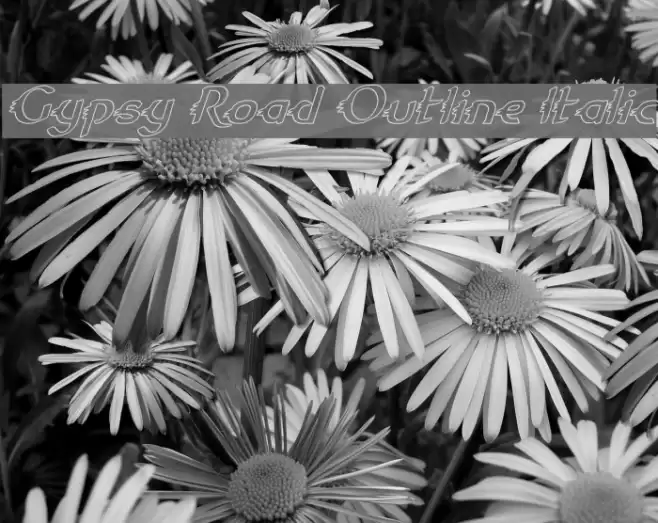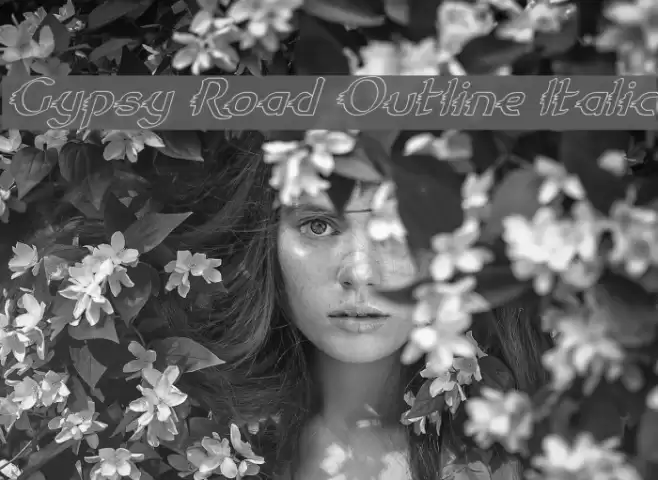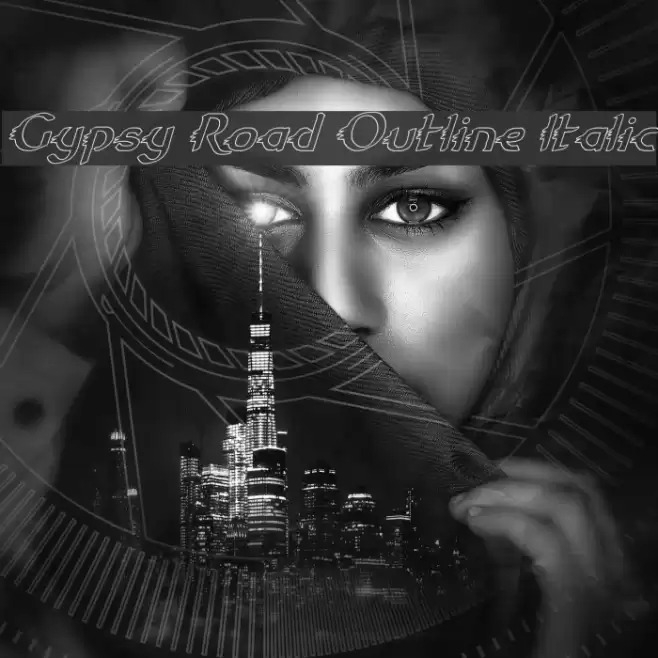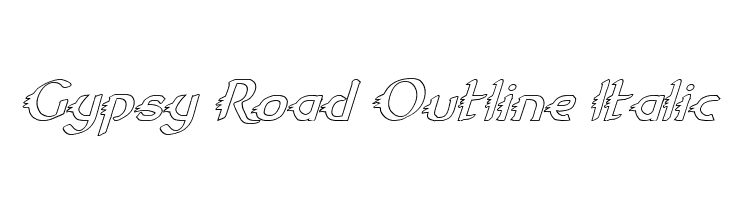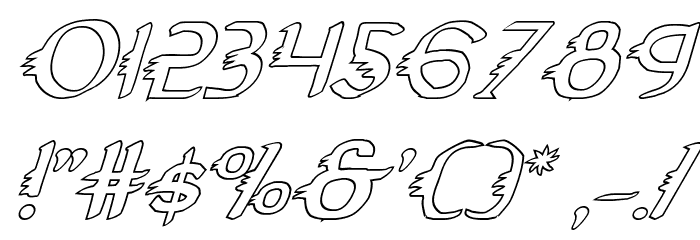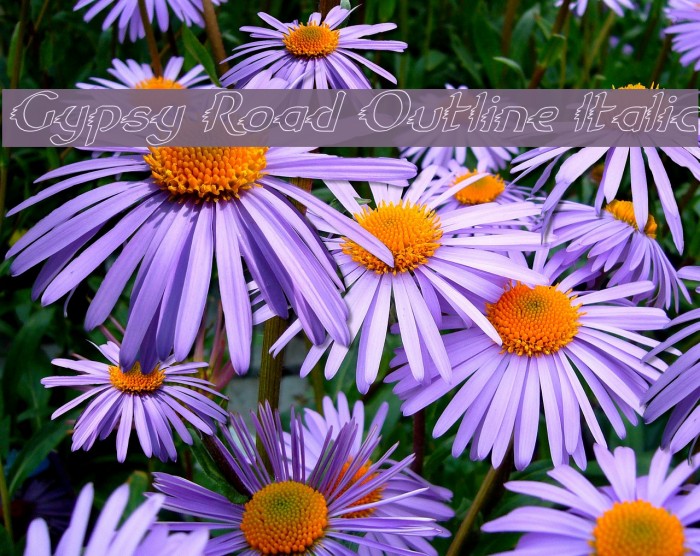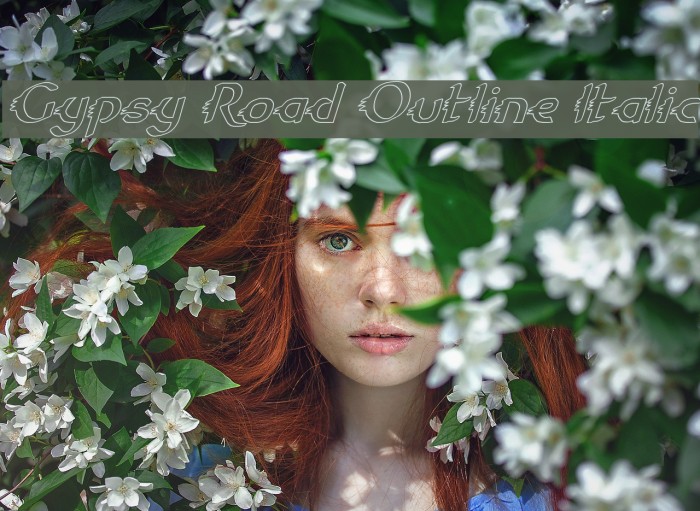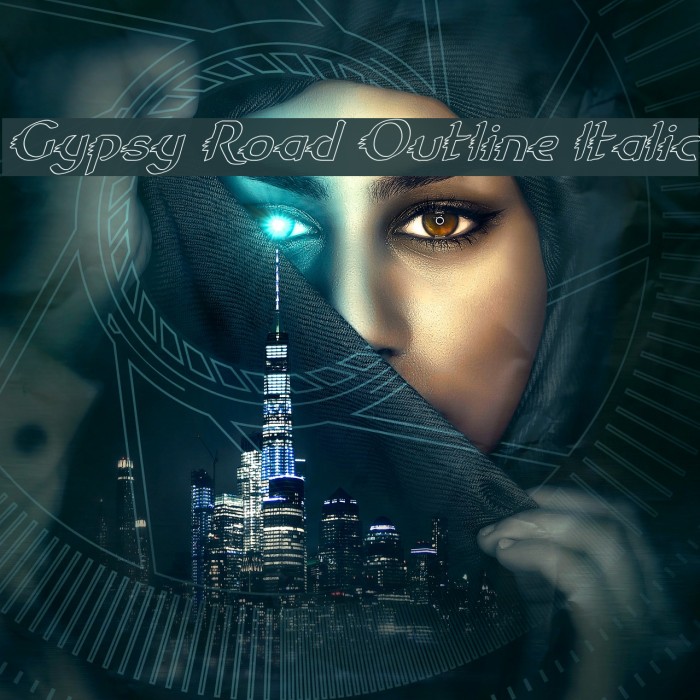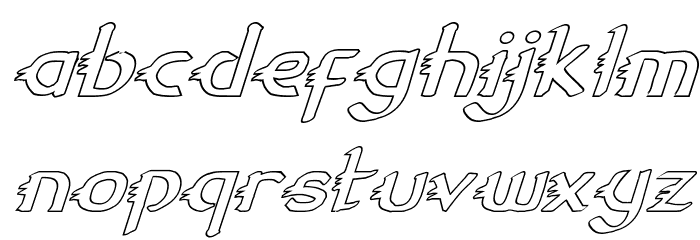
Gypsy Road Outline Italic
This font features a unique and dynamic outline style with an italic slant, giving it a sense of movement and energy. The characters are designed with sharp, jagged edges that resemble lightning bolts, adding a bold and edgy aesthetic. The uppercase and lowercase letters maintain a consistent style, with the lowercase being slightly more rounded. Numbers and special characters follow the same design principles, ensuring uniformity across the font. The outline nature of the font makes it stand out, ideal for eye-catching designs.
A dynamic, italic outline font with jagged, lightning bolt-like edges.
- Proposed Projects: Perfect for music album covers, event posters, or any project needing a bold, energetic look.
- Overall Style: Decorative